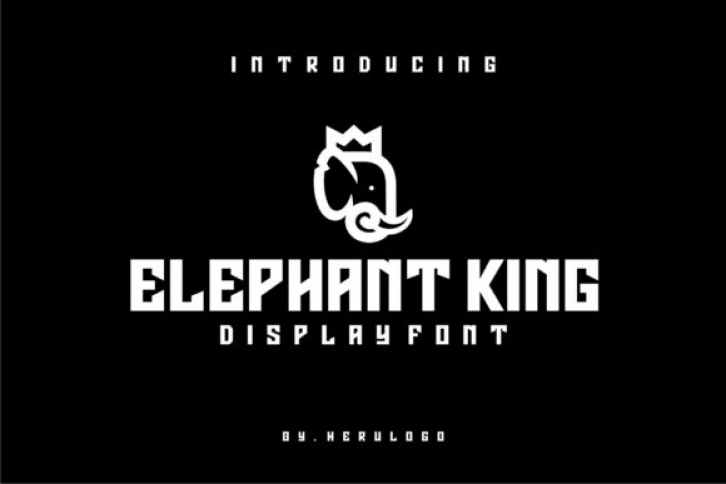
Elephant King features a heightened width in its characters, which makes this typeface stand out in applications like logos, headlines, or any other type of display!